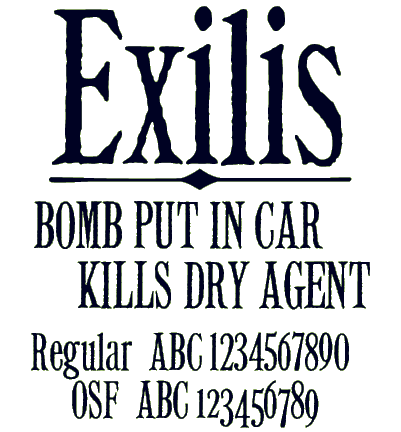
This rough-edged font was developed for use in headlines in vintage prop newspapers. It is based on a 19th-century sample of a Latin condensed. The OSF weight has modified serifs to better match a certain American newspaper.